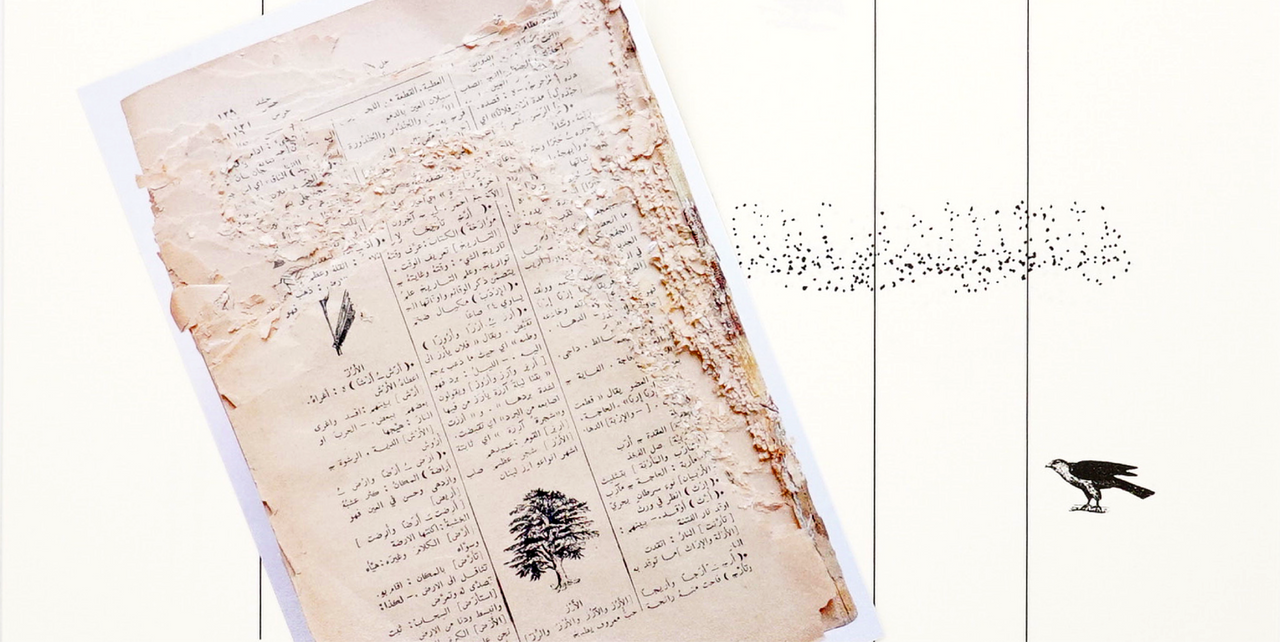
Salon Series 36: New Ideas in Visual Language
Our Curatorial Fellow, Vivian Sming, will present highlights from her new acquisitions for the Archive that are in dialogue with our existing collection. We’ll see unusual letterforms created by bookworms, modular typography, unique and collaborative reading experiences, and books by contemporary artists using language in their work.